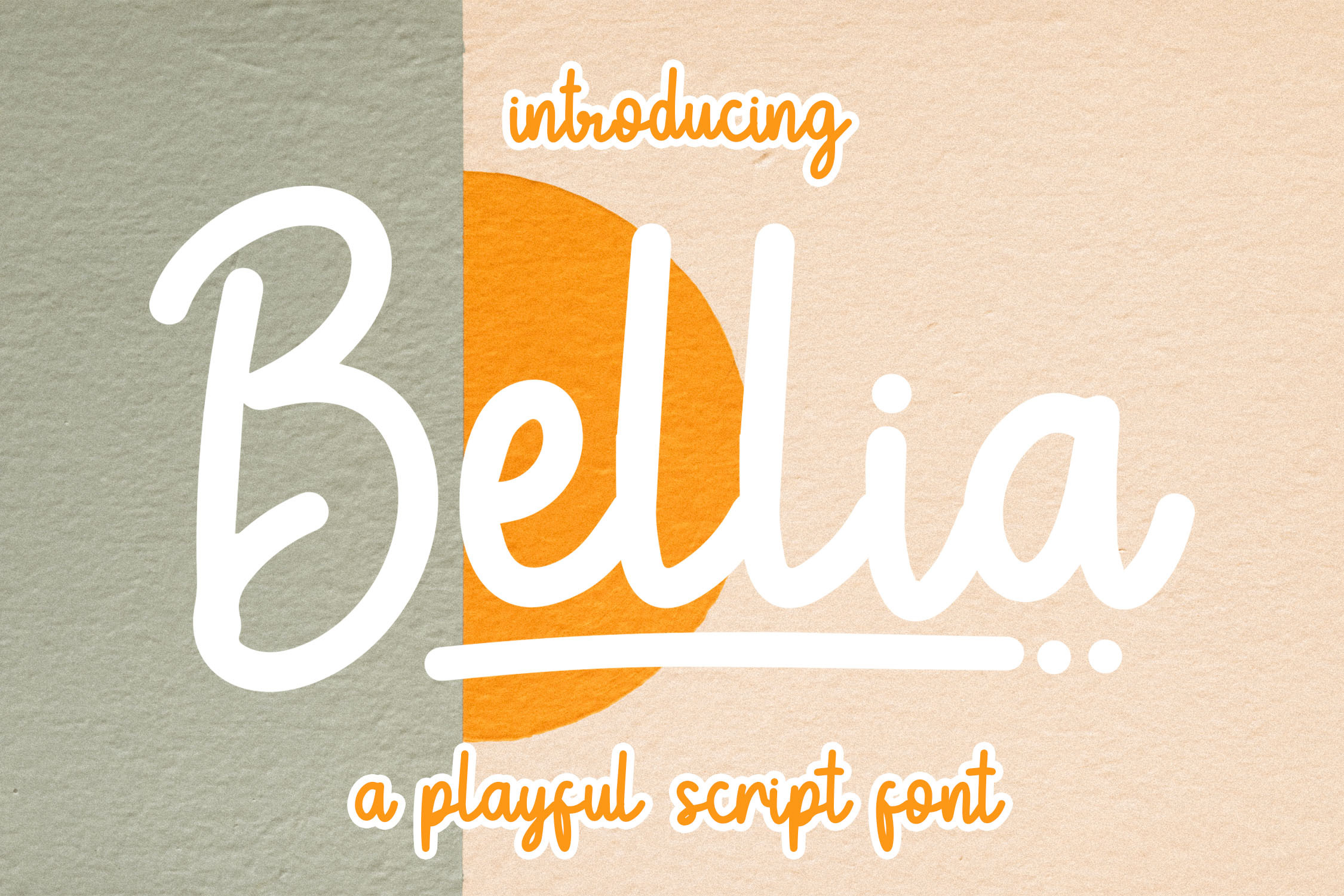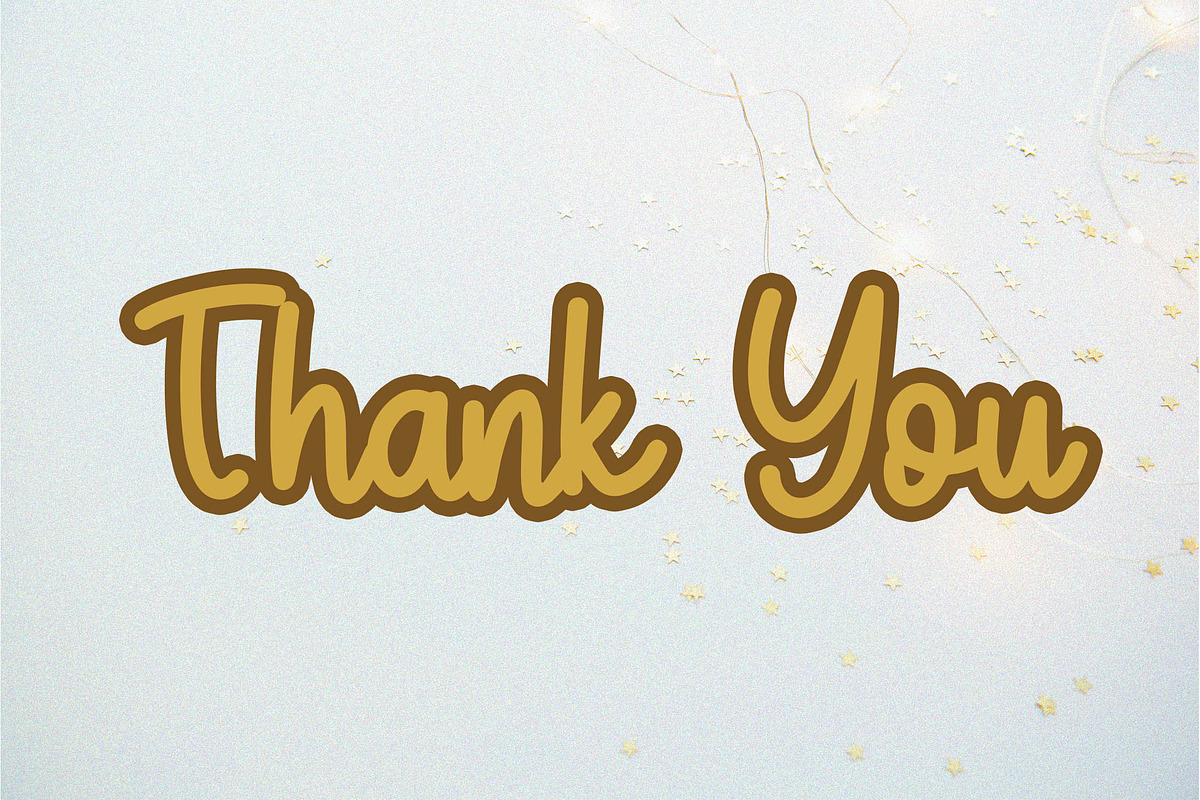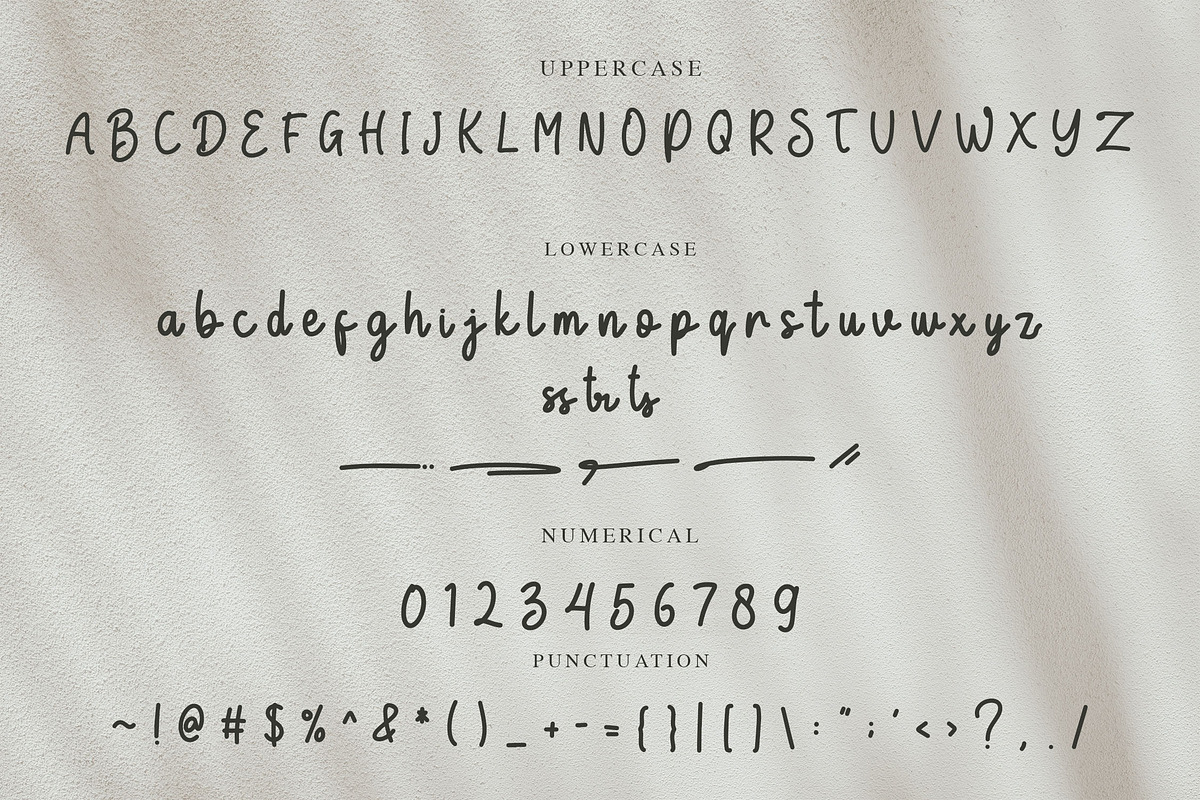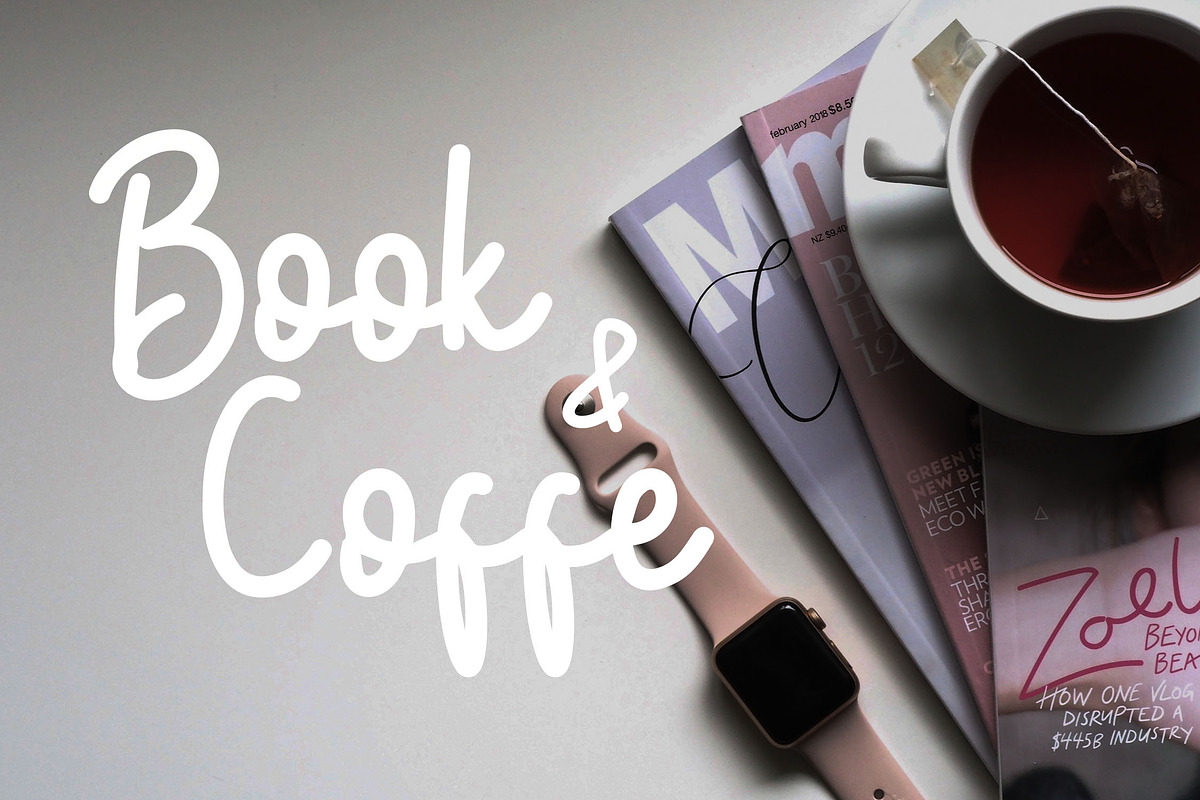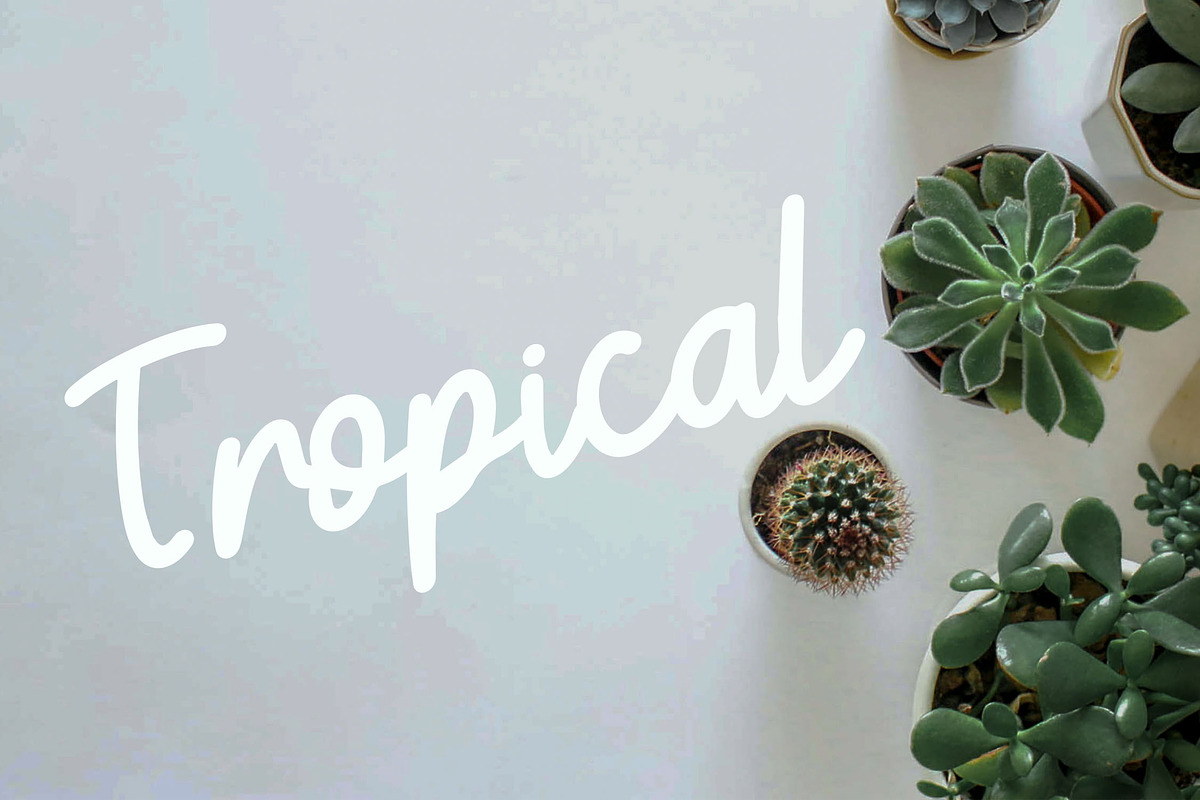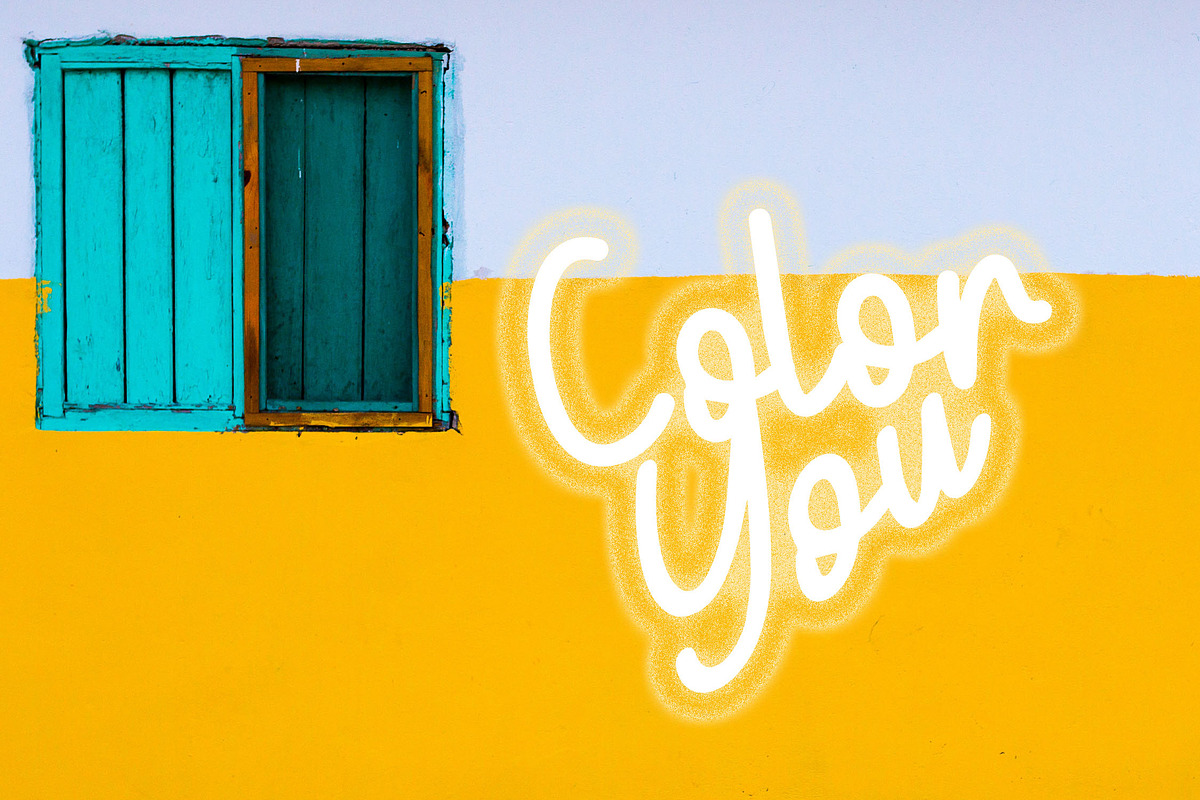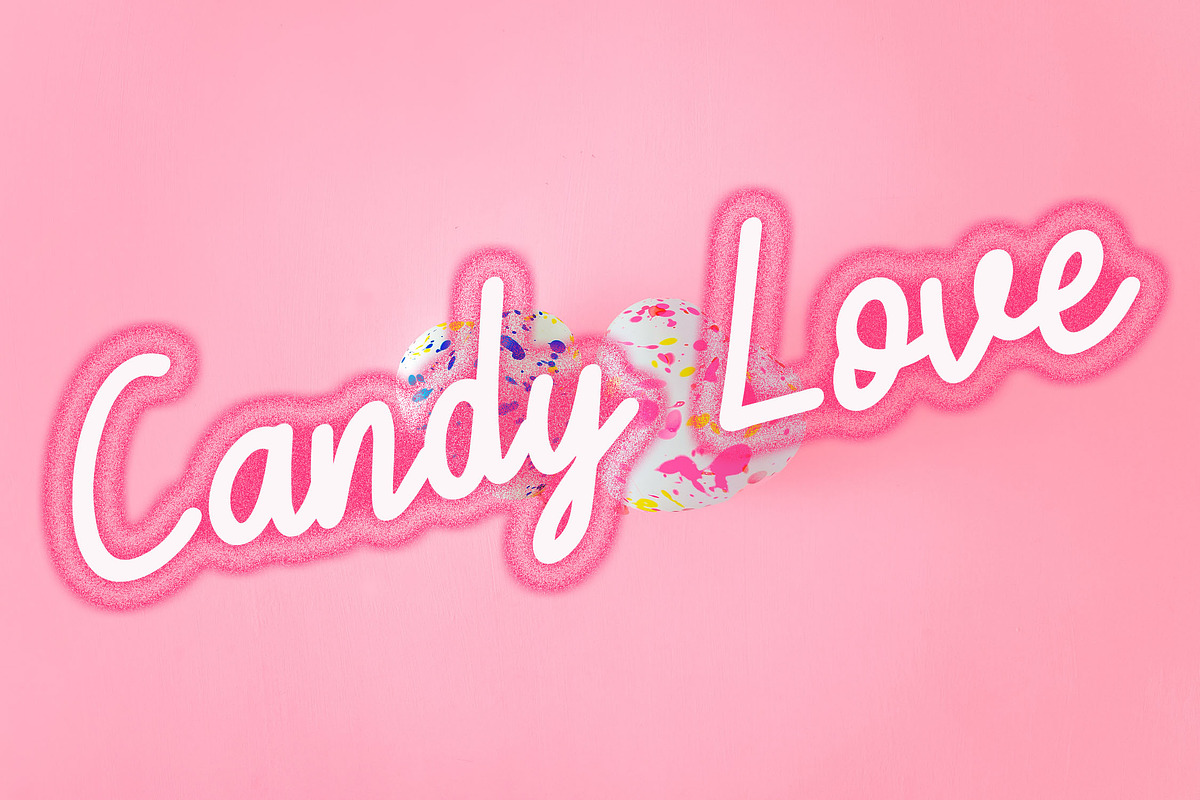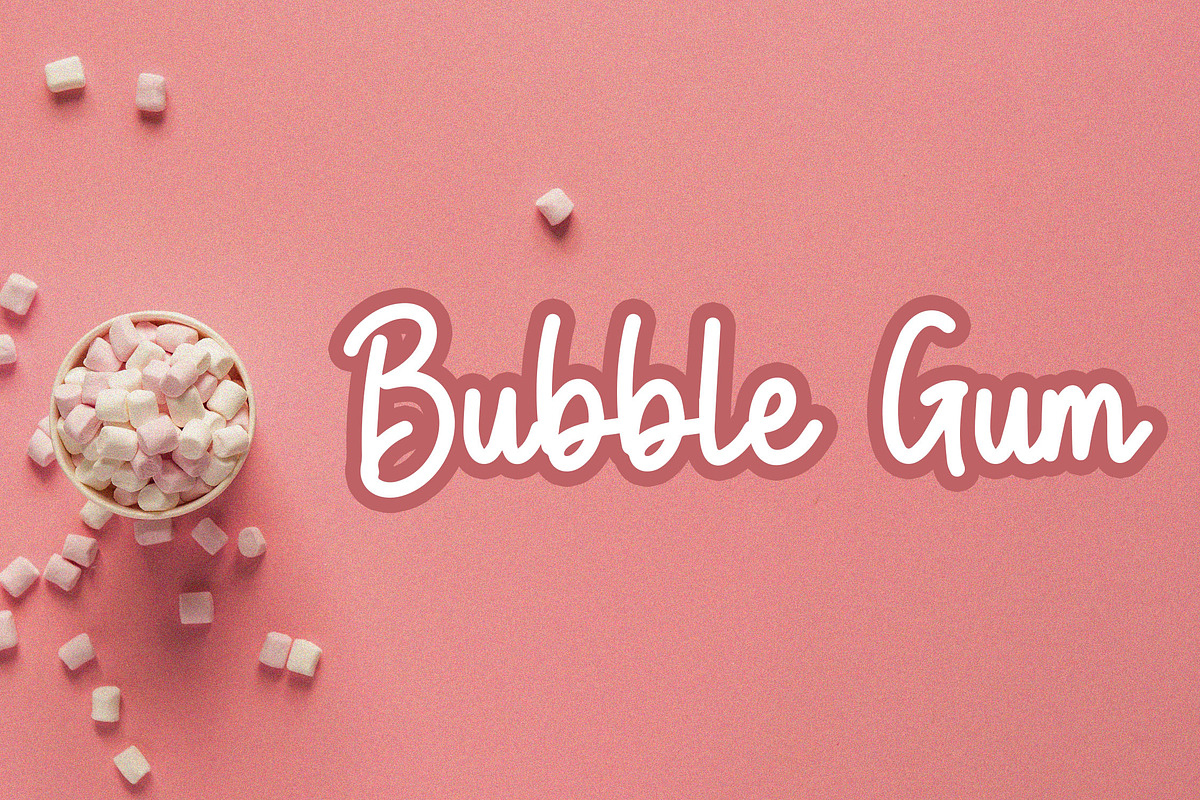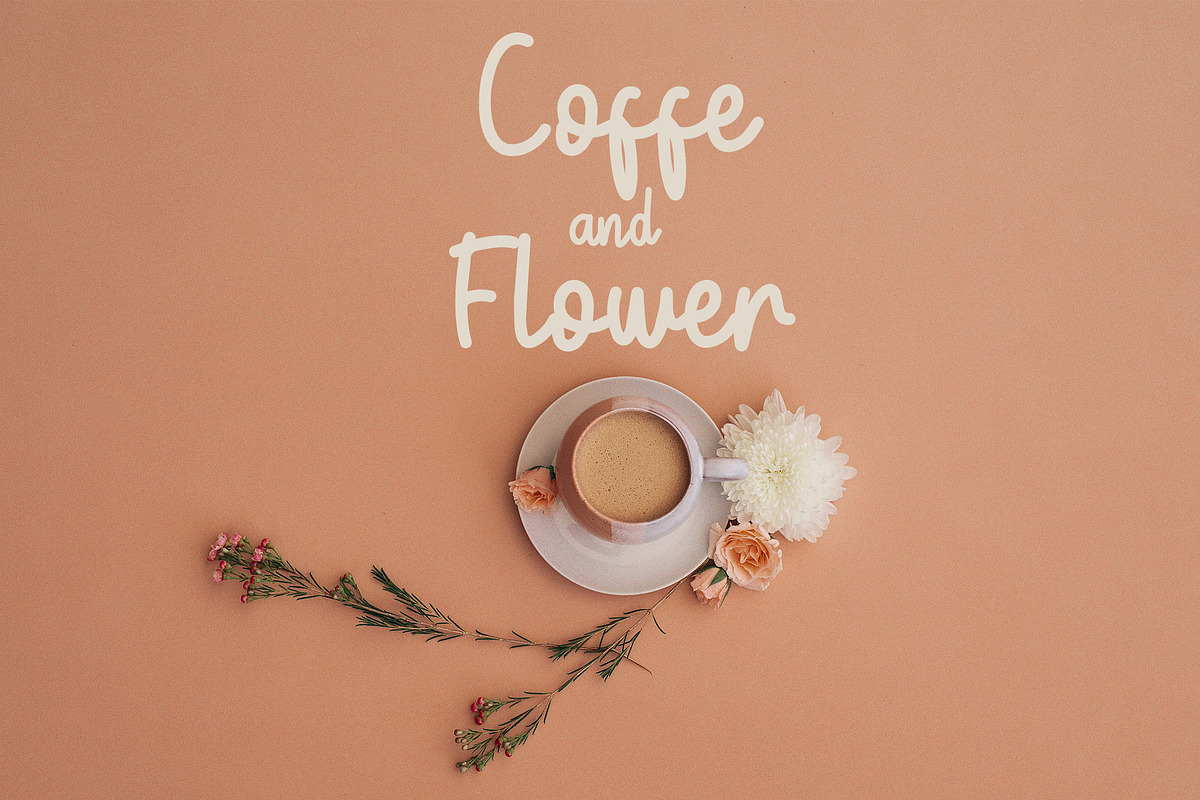
Bellia - Playful Script Font
Bellia is a playful script font with monoline style. Is a font style that is made with scratches and curvature shapes font characters are very beautiful. Can be applied to support the graphic appearance of the product to be more attractive and unique. This font is very nice for making previews and covers designs, logo, shirts and other graphic needs.
- Stylistic Alternate